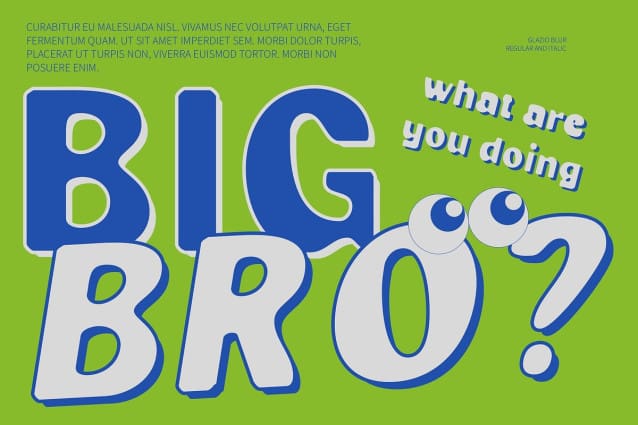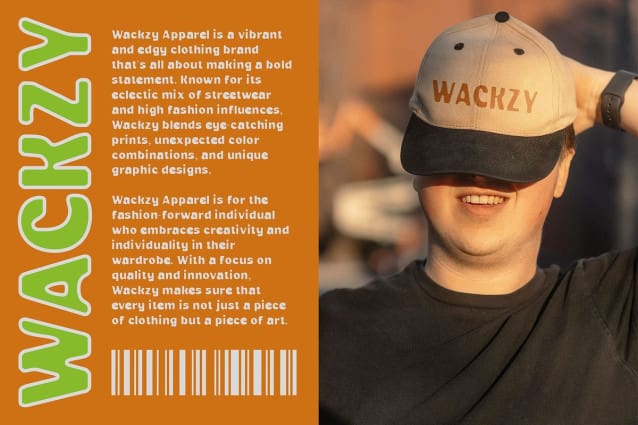
Glazio Blur Font
Glazio Blur Font is a bold sans-serif font that brings together thick letterforms and a playful design, creating a fun and funky vibe that instantly captures attention. The font’s cute, rounded shapes radiate a lively and energetic feel, perfect for projects that aim to evoke joy and creativity. Its boldness ensures a strong visual impact, making it an excellent choice for designs that need to stand out while maintaining a lighthearted tone.
Unique Blur Effect for a Dynamic Touch The blur effect in Glazio Blur adds a unique, dynamic touch to the font, softening the edges of the bold letterforms and introducing a sense of movement and fluidity. This effect creates a charming balance between the strong, impactful design and a softer, more whimsical mood. The blur gives the font a distinctive character, making it ideal for applications where a playful yet polished aesthetic is desired.
Versatile for Cheerful and Creative Designs Glazio Blur is perfectly suited for a variety of cheerful and creative design projects. Whether you’re designing children’s materials, party invitations, or branding for a fun, upbeat brand, this font delivers a vibrant and engaging visual experience. Its combination of boldness and softness makes it adaptable to different contexts, from eye-catching headlines to playful logos and beyond.